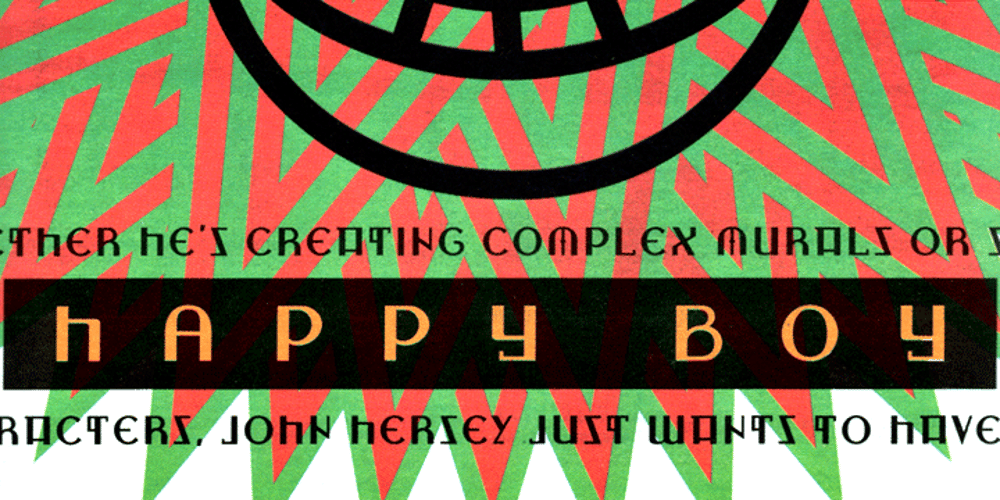
Zagora Font Family was designed by Jason Castle and published by CastleType. Zagora contains 1 styles and family package options. Based on an art deco design, with alternate characters and numerals. Named for a little town in Morocco on the border of the Sahara desert, with a billboard at the edge of a great expanse of sand that points the way to Timbuktu (several days by camel).